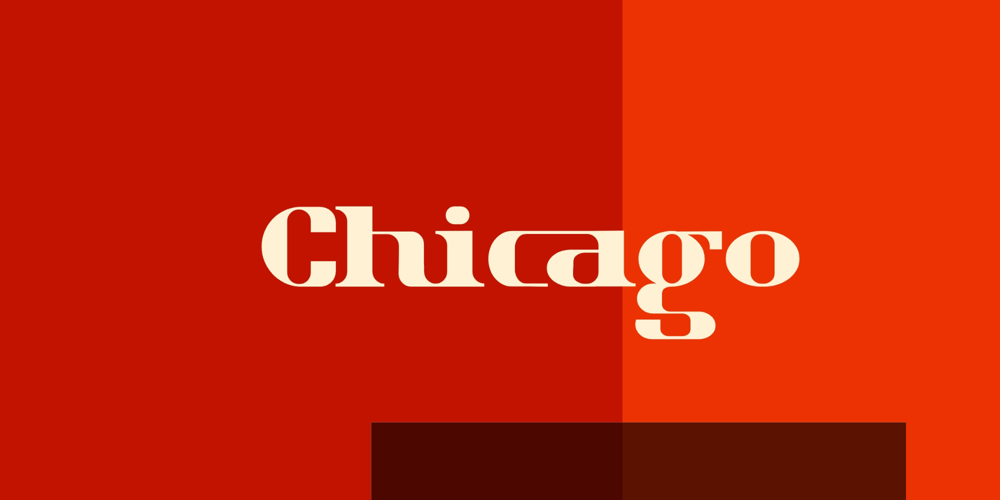
Chicago
Chicago font
Chicago Font Family was designed by Yesaya Amnestian and published by Nestype. Chicago contains 1 styles and family package options. Chicago Retro is a combination font between 70’s Modern or Vintage and the modern era, this font is very versatile, spanning a wide variety of projects, from bold magazine imagery, to wedding invitations, to branding, poster design, and much more.